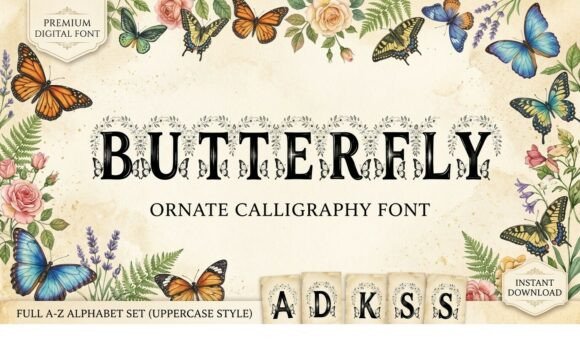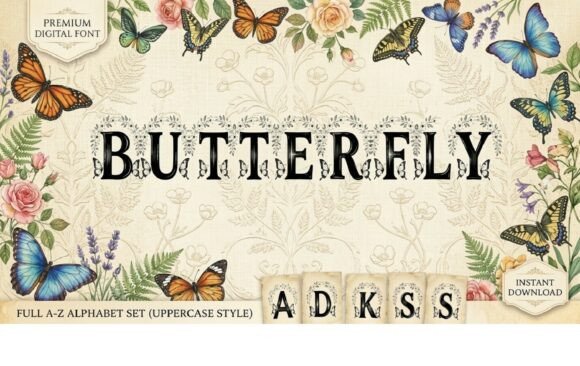
Add a Touch of Vintage Elegance with the Enchanting Butterfly Font 🦋🌿
Are you a designer or crafter looking to infuse your work with a romantic, vintage flair? Look no further than the breathtaking Butterfly font! This premium, highly detailed decorative display font is inspired by antique nature guides and cottagecore aesthetics, making it the perfect addition to your design toolkit.
A Beautifully Crafted Font with a Timeless Appeal
The Butterfly font features a bold, classic serif base letter that is beautifully enveloped by delicate, hand-drawn line-art flourishes, winding vines, and sweet little butterflies resting gently on the typography. This stunning design is sure to transport your work to a bygone era, evoking feelings of nostalgia and whimsy.
The Butterfly font is an absolute dream for crafters and designers looking to add a touch of elegance to their work. Its versatility makes it suitable for a wide range of design applications, including:
• Monograms: Create stunning monograms for personal projects or client work, adding a touch of sophistication and refinement.
• Vintage Junk Journal Pages: Add a romantic, vintage flair to your junk journal pages, making them truly one-of-a-kind.
• Elegant Wedding Invitations: Make your wedding invitations truly special with the Butterfly font, adding a touch of whimsy and romance.
• Spring Sublimation Designs: Create beautiful spring-themed sublimation designs, perfect for seasonal projects and promotions.
• Botanical Tote Bags: Add a touch of elegance to your tote bag designs, making them perfect for craft fairs and online sales.
• Beautiful Drop Caps: Use the Butterfly font to create stunning drop caps for book layouts, adding a touch of sophistication and refinement.
Why Choose the Butterfly Font?
So why choose the Butterfly font for your design projects? Here are just a few reasons:
• Unique and Eye-Catching: The Butterfly font is a truly unique and eye-catching design, sure to make your work stand out from the crowd.
• Highly Versatile: The font’s versatility makes it suitable for a wide range of design applications, from wedding invitations to tote bag designs.
• Easy to Use: The Butterfly font is easy to use, even for designers who are new to working with decorative fonts.
• Premium Quality: The font is of premium quality, ensuring that it will look beautiful and elegant in any design.
Tips for Using the Butterfly Font
To get the most out of the Butterfly font, here are a few tips:
• Experiment with Different Sizes: Experiment with different font sizes to find the perfect balance for your design.
• Pair with Other Fonts: Pair the Butterfly font with other fonts to create a unique and eye-catching design.
• Use in Combination with Images: Use the Butterfly font in combination with images to add an extra layer of depth and interest to your design.
In conclusion, the Butterfly font is a beautiful and elegant design that is sure to add a touch of vintage charm to your work. Its versatility, unique design, and premium quality make it a must-have for designers and crafters looking to elevate their designs. So why wait? Download the Butterfly font today and start creating stunning designs that will leave a lasting impression! 🦋🌿